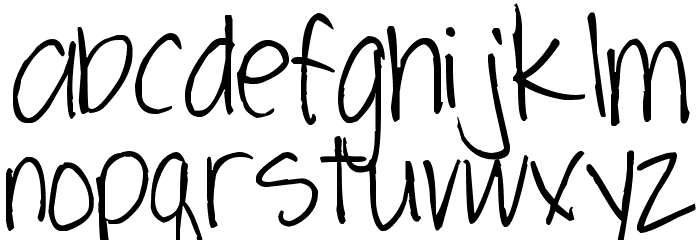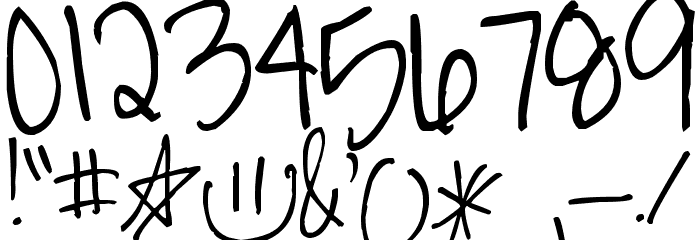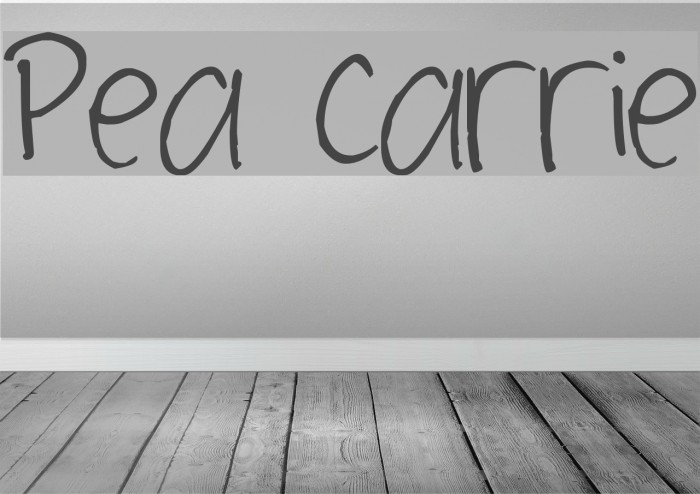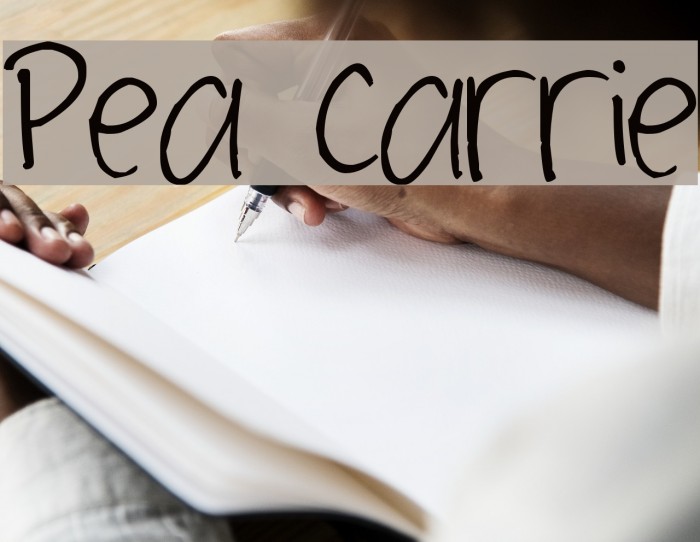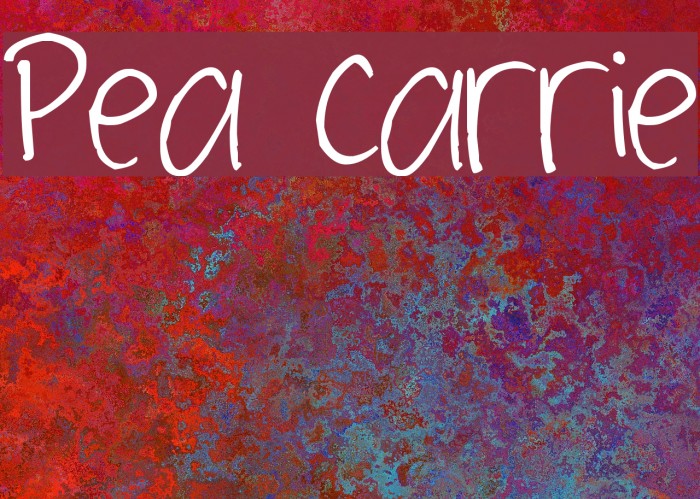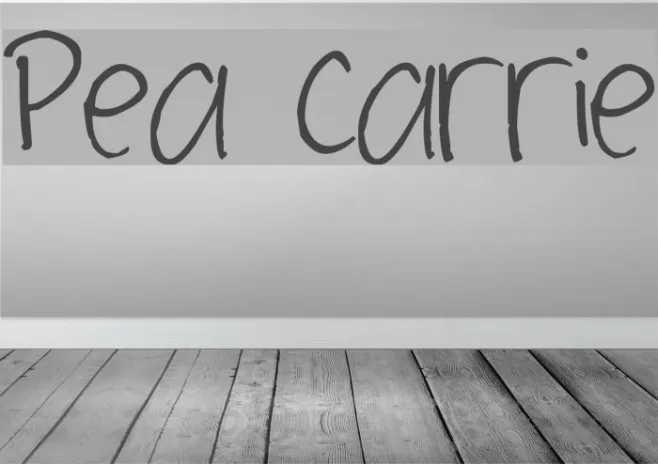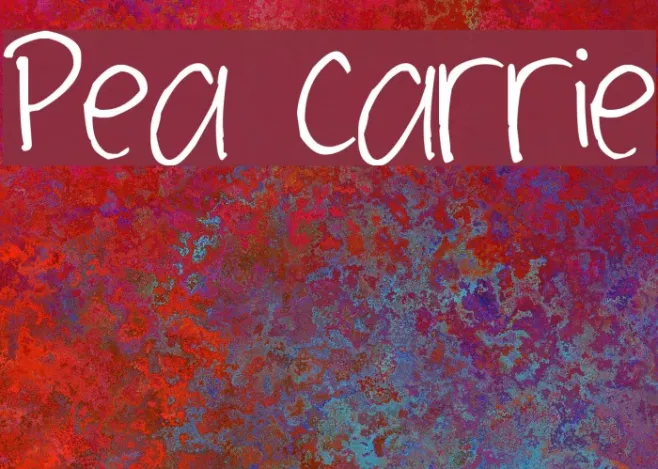
Pea Carrie Font
This font exudes a casual, handwritten style with a playful and informal appearance. The characters are unevenly spaced and slightly tilted, giving it a dynamic and lively feel. The strokes are consistent in thickness, maintaining a uniform look throughout. The uppercase and lowercase letters are distinct, with the lowercase having a more rounded and flowing form. The numbers and special characters follow the same playful style, making them cohesive with the rest of the font. This font is ideal for projects that require a personal touch or a fun, approachable aesthetic.
A playful, handwritten font with a casual and lively style.
- Proposed Projects: Great for greeting cards, children's books, casual branding, and social media graphics.
- Overall Style: Casual, Playful
- Use Case: Headlines, Informal text, Creative projects